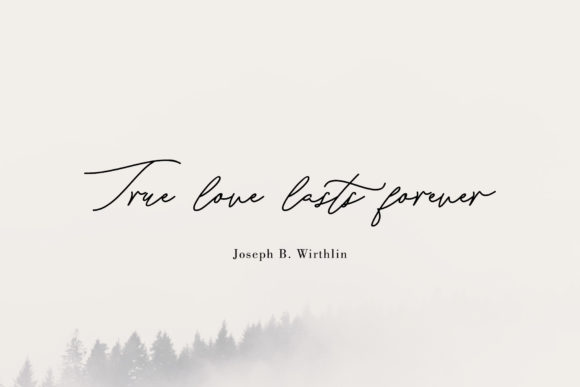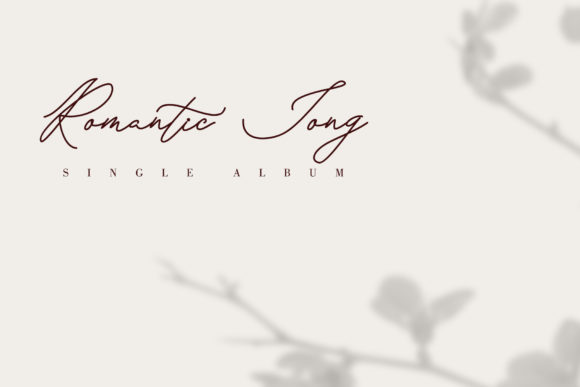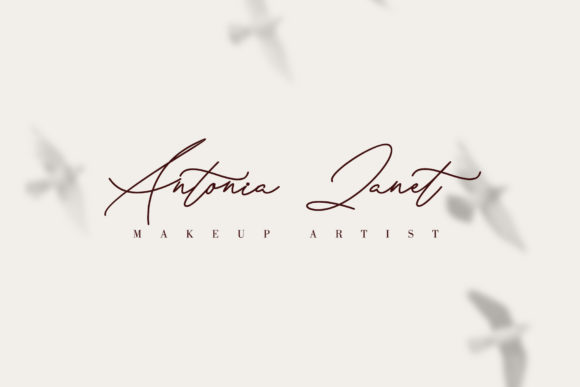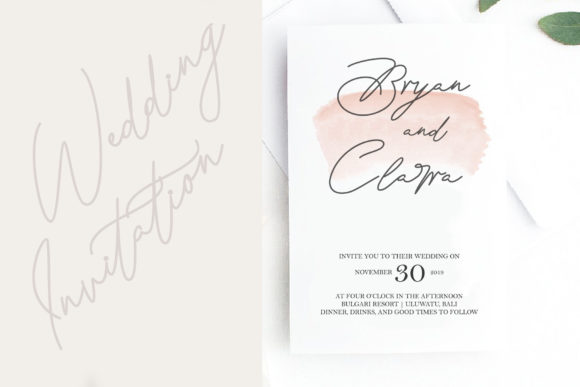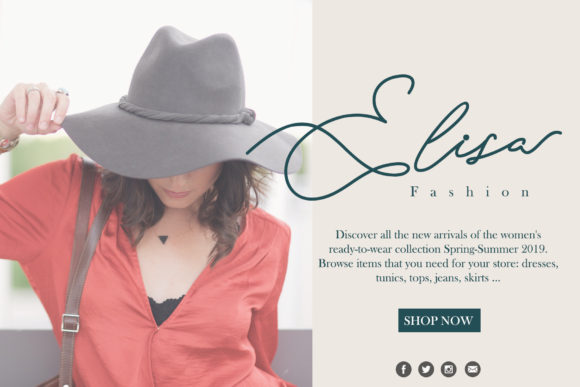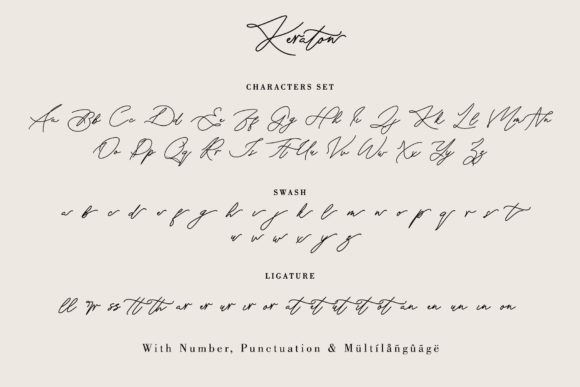
HomeScript FontsKeraton Font Script Fonts Keraton Font FacebookXPinterestWhatsApp Keraton Font Poster 2 Keraton Font Poster 3 Keraton Font Poster 4 Keraton Font Poster 5 Keraton Font Poster 6 Keraton Font Poster 7 About Keraton Font Keraton is a monoline script with a signature look. It will take any design project to the next level. DOWNLOAD ON CREATIVE FABRICAThis font is sold and delivered by Creative Fabrica. Font Canyon may earn a commission if you buy through this link. People also explored Zeuty Font Catastrophist Font Quick Font Joy Notebook Font Bygonest Home School Font Mochalisa Font Hanging Hearts Font Note Book Font 265 0 TagsKeraton Font Previous articleSanliurfa FontNext articleSyllia Font LEAVE A REPLY Cancel reply Comment: Please enter your comment! Name:* Please enter your name here Email:* You have entered an incorrect email address! Please enter your email address here Website: Save my name, email, and website in this browser for the next time I comment. Personal Use Free Dead Block Personal Use Free Read more about this font The Most Beautiful Gift Personal Use Free Read more about this font Foo Personal Use Free Read more about this font Aelten Personal Use Free Read more about this font BLOG Best Fonts for YouTube Videos: Make Your Thumbnails Stand Out Best Fonts for YouTube Videos: Make Your Thumbnails Stand Out Choosing the right font can make a massive difference in how your YouTube videos perform.... How to Cut Any Font on Cricut: Convert a Font to SVG (Free) Free vs Paid Fonts: Why Investing in Premium Fonts Is Worth It Free Fonts Risk: Why Free Fonts Can Be Dangerous for Designers